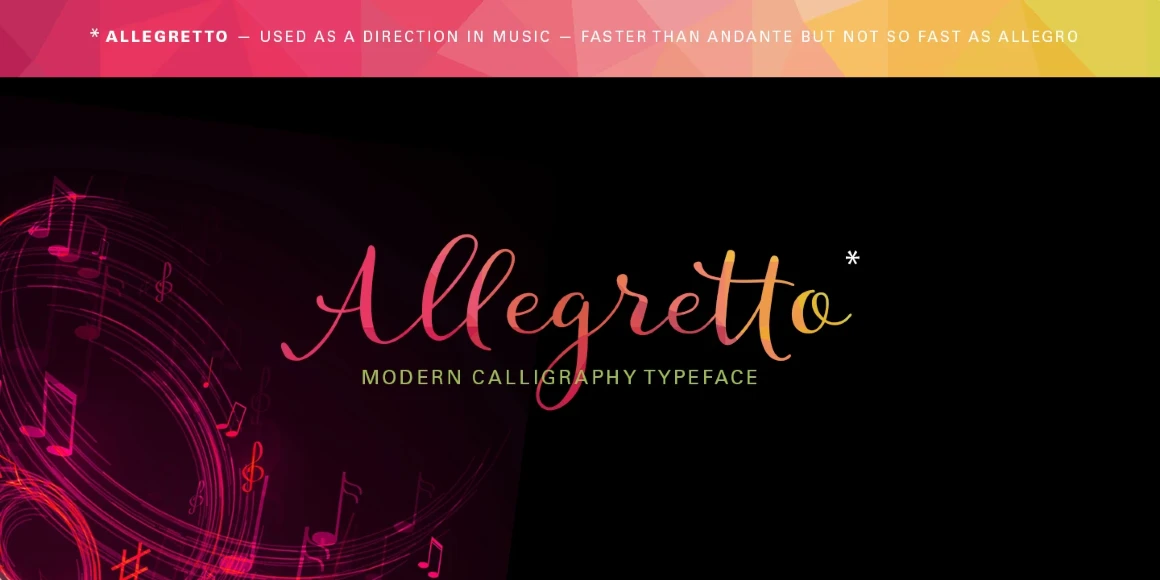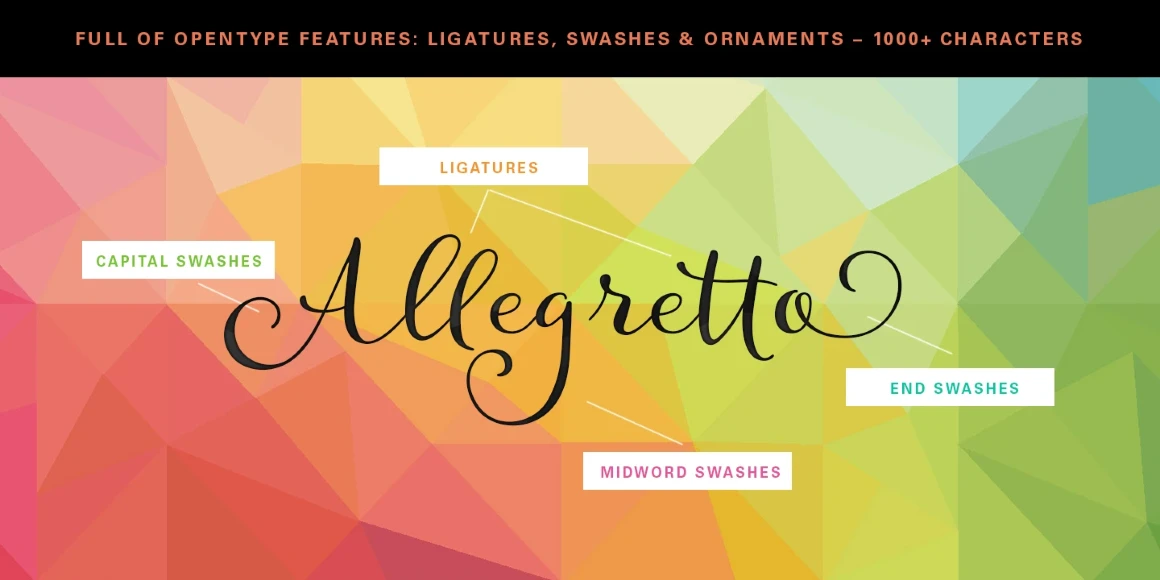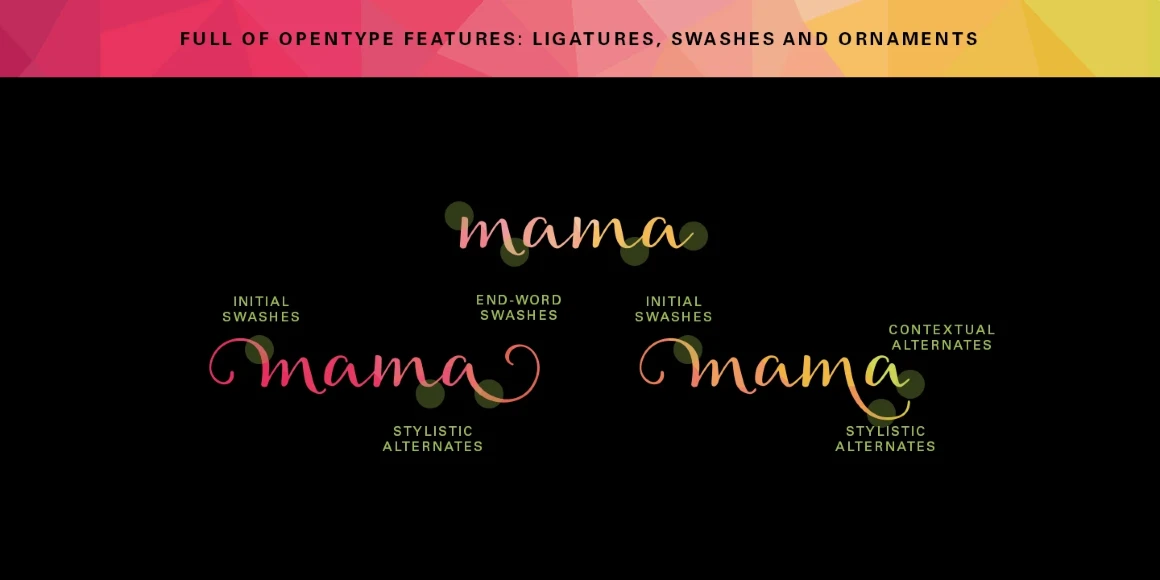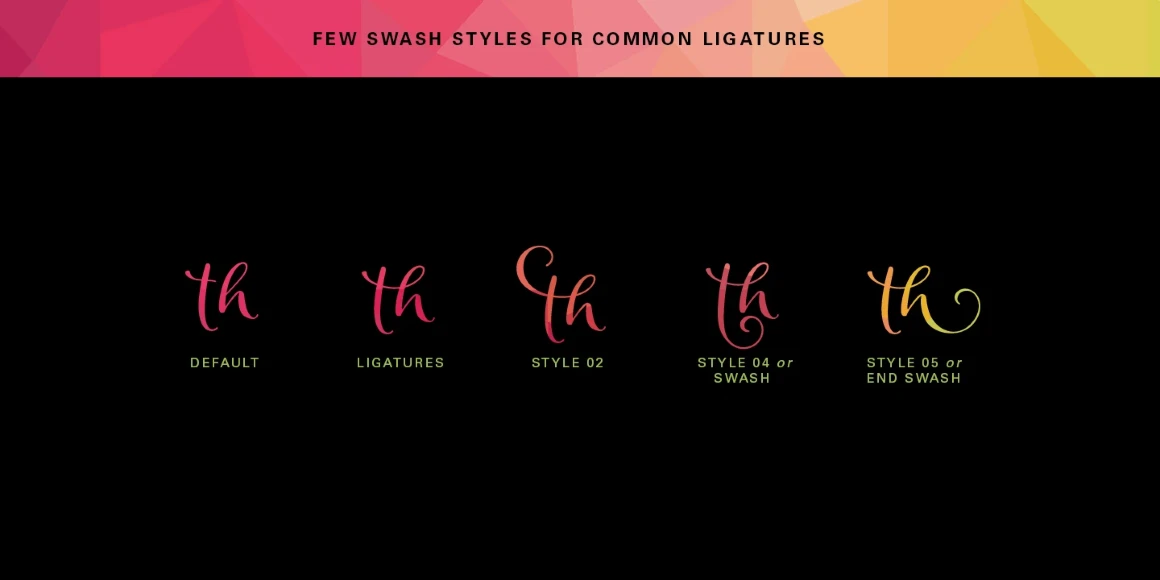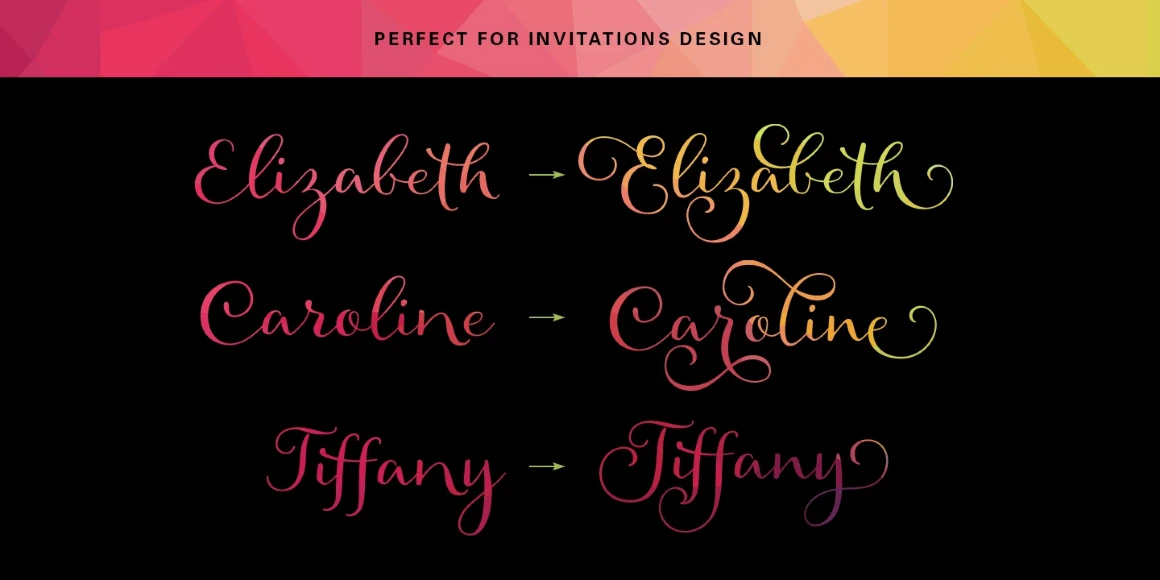
Allegretto
Allegretto Script is a modern calligraphic typeface with an elegantly playful style. The liveliness and movement was inspired by Mozart’s “Rondo Alla Turca” and his other compositions which played with the allegretto or moderately fast tempo. The font contains more than 1000 glyphs — each letter in the typeface has a few different swashes — assuring you that your words will be infused with originality and a special hand-lettered quality.
Designed by Elena Genova